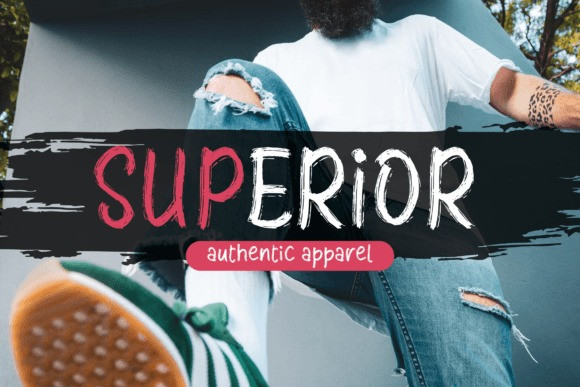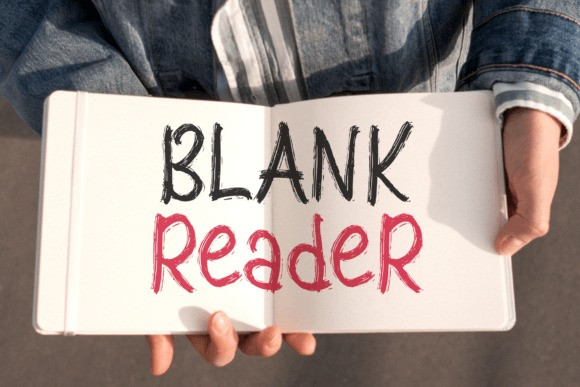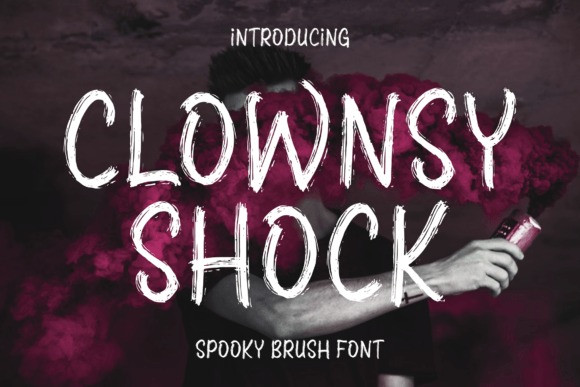
Clownsy Shock Font
Clownsy Shock – Spooky Brush Font suitable for any projects such as logos, branding projects, homeware designs, product packaging, mugs, quotes, posters, shopping bags, t-shirts, book covers, name cards, invitation cards, greeting cards, labels, photography, watermark, special events, and all your other lovely projects that need a unique script taste.